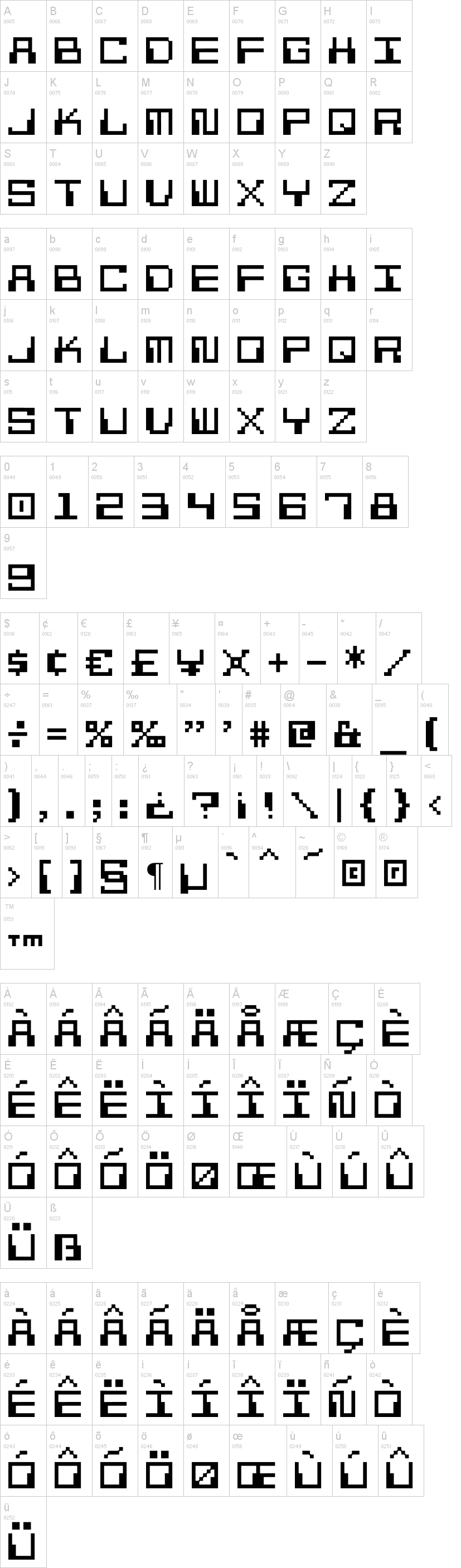
Pixel Calculon Italic.otfNote of the authorThis classic style is based on the 1970s fake-computer text found all over science-fiction television shows, really bad movies, and lots of advertising. Includes full alpha-numerics, extended punctuation, and Euro. Includes regular and italic styles.